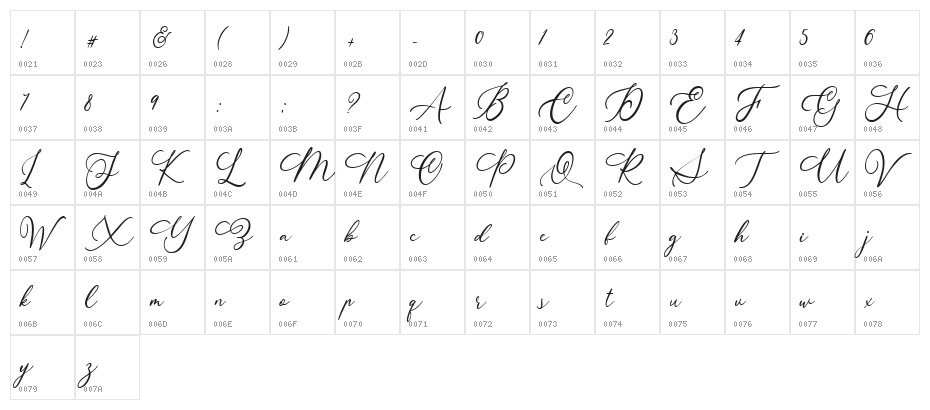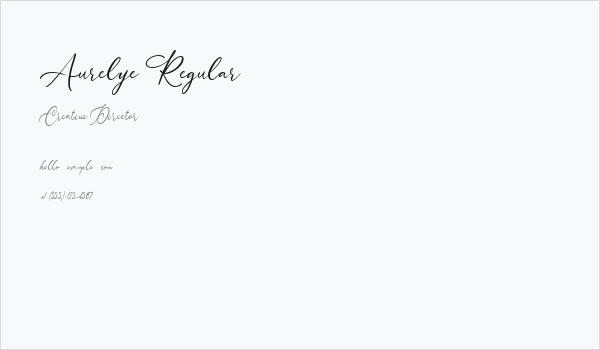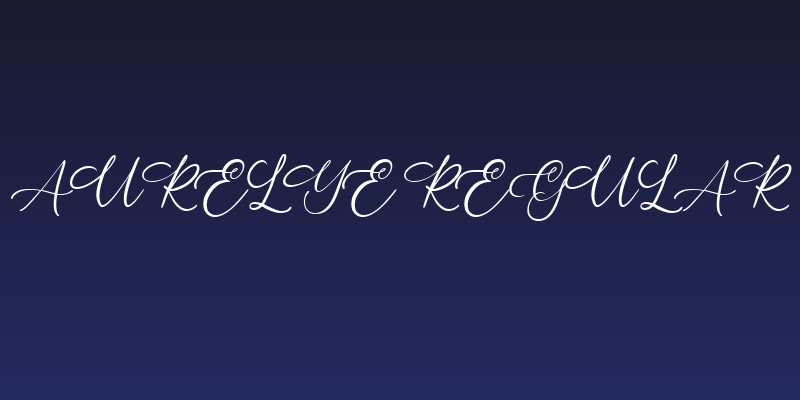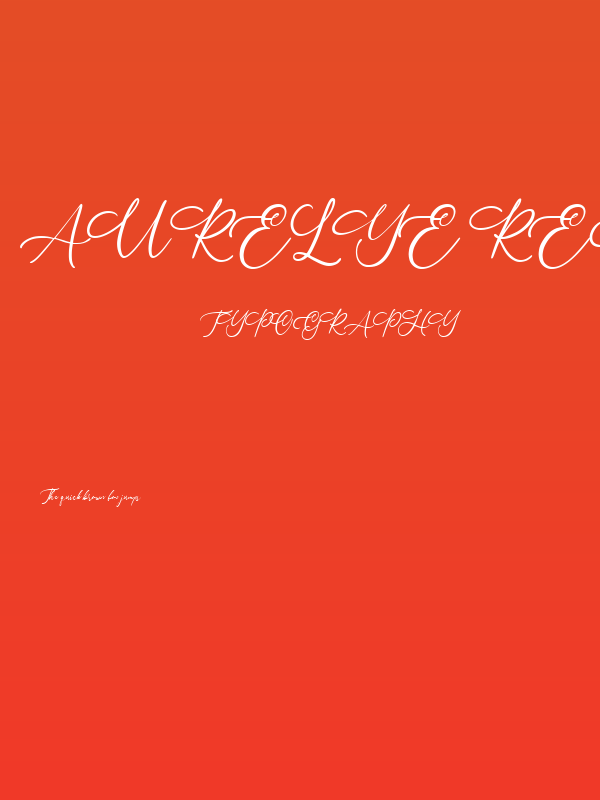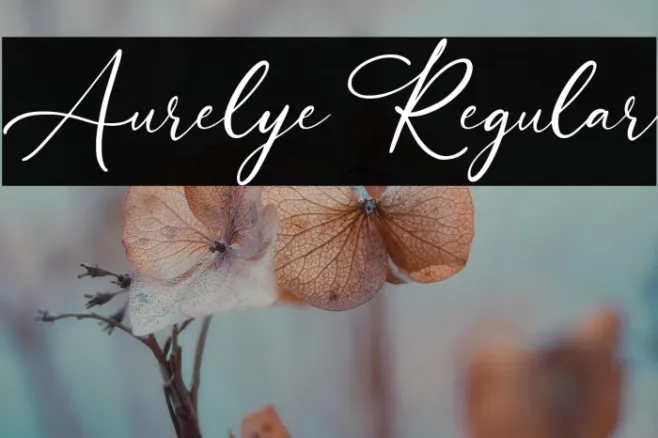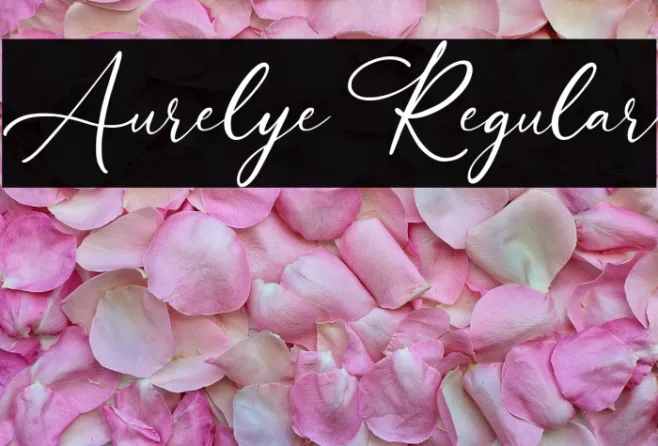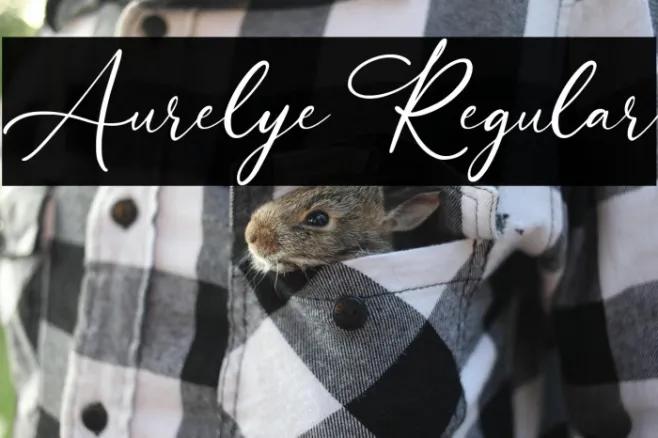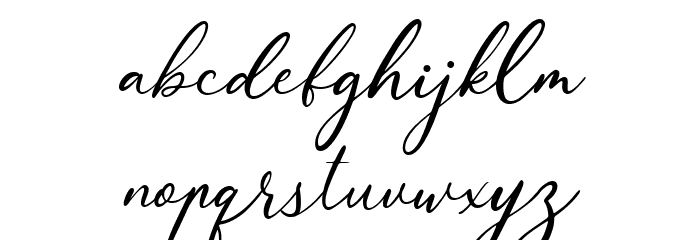
Aurelye Regular Font
Aurelye Regular Description
This elegant script font features flowing, cursive letterforms with a sophisticated and artistic flair. The uppercase letters are ornate and decorative, with intricate loops and swashes that add a touch of elegance. The lowercase letters maintain a consistent style, offering a smooth and connected appearance that enhances readability while retaining a stylish look. The numerals are designed to match the overall aesthetic, providing a cohesive appearance across all characters. Special characters, including punctuation marks, are thoughtfully integrated, maintaining the font's graceful and refined style. This font is ideal for projects that require a touch of elegance and sophistication.
| Proposed Projects | Ideal for wedding invitations, elegant branding, greeting cards, and upscale packaging. |